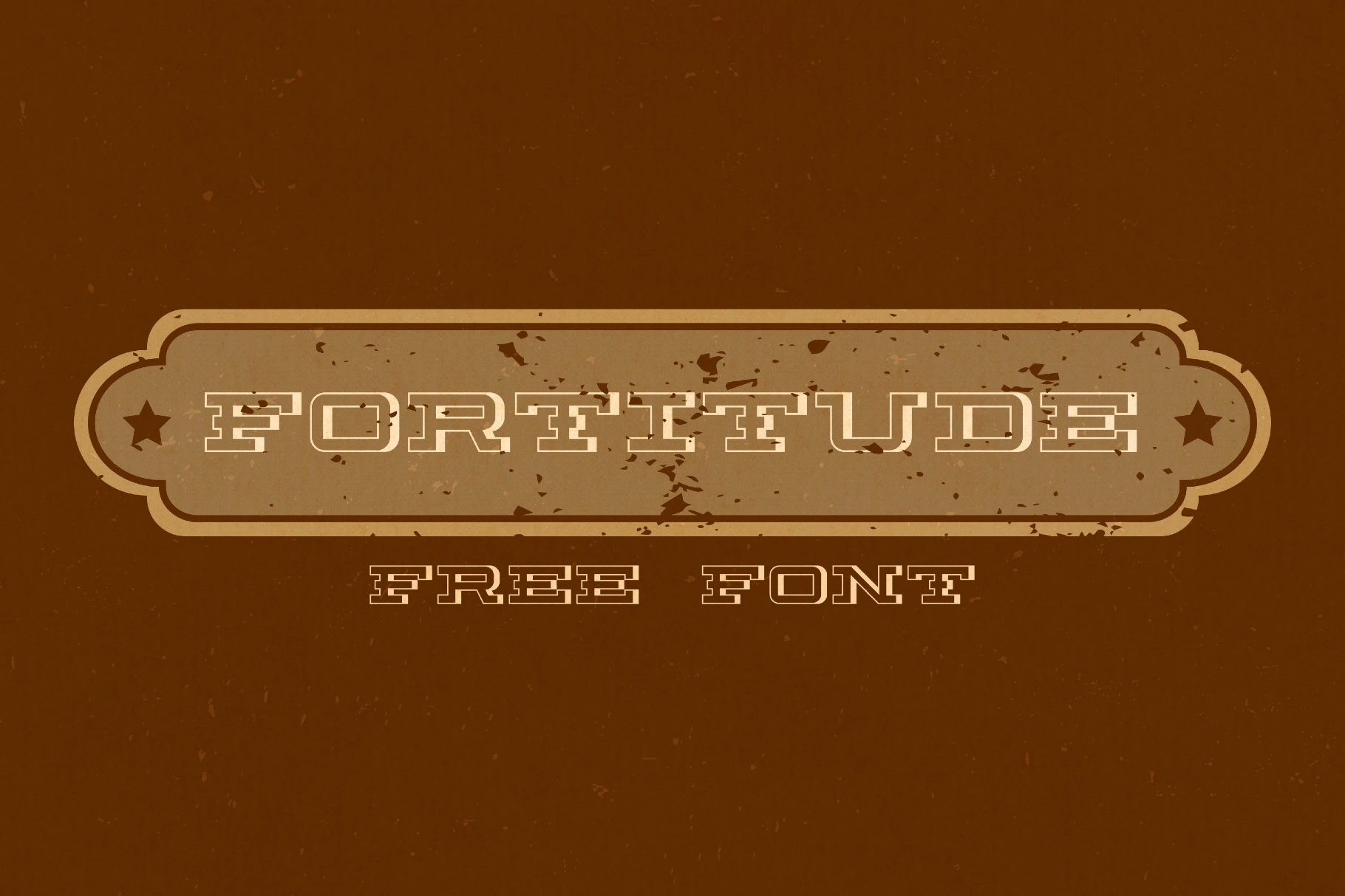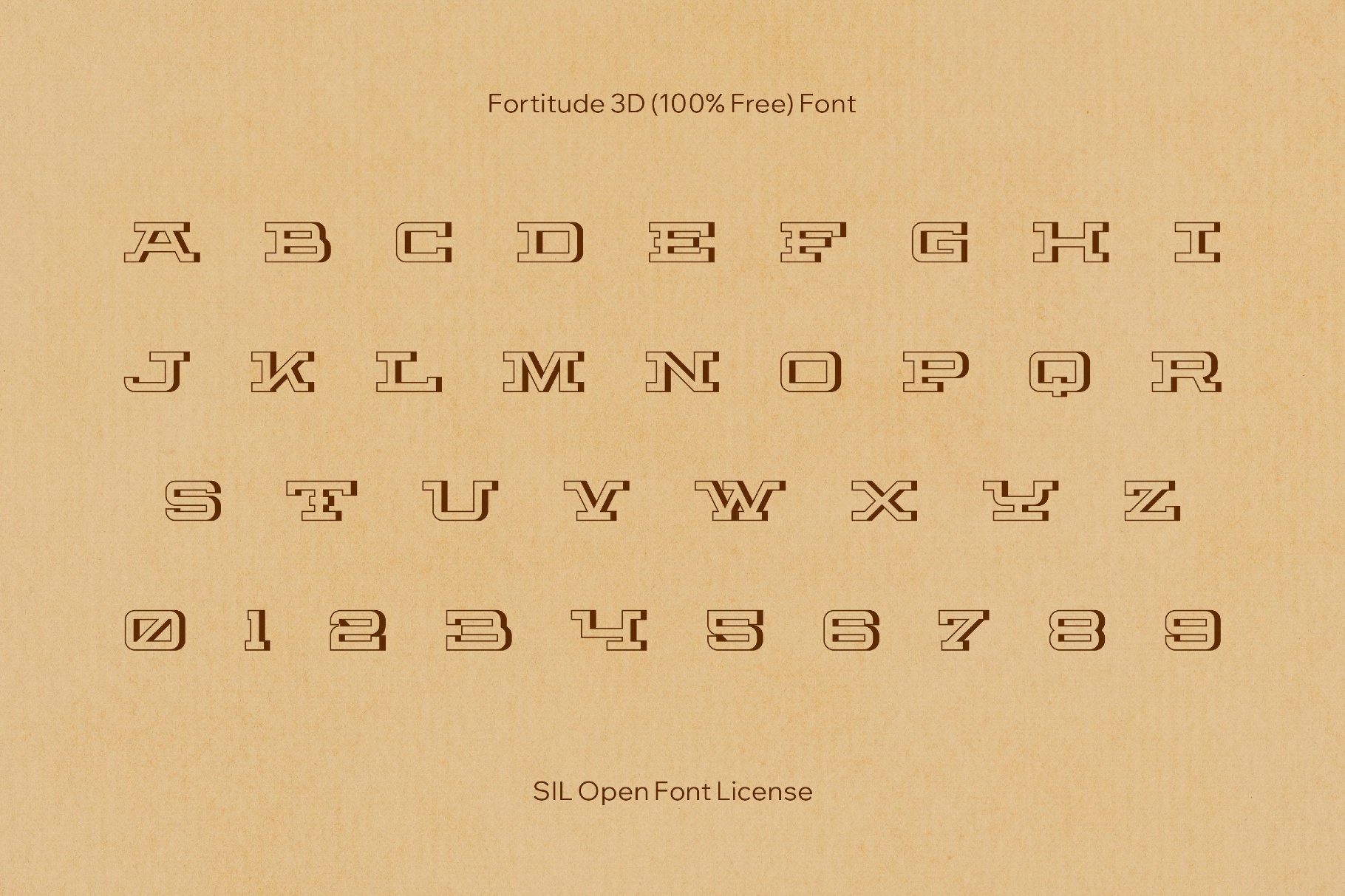
Fortitude 3D Font
Fortitude 3D delivers a dimensional display style. Its chunky inline shading recalls mid-century sign painting, arcade marquees, and classic comic-book title art. It fits for posters, headlines, logos, packaging, album art, merch designs, social media titles, and promotional graphics.
- Only uppercase letters A–Z.